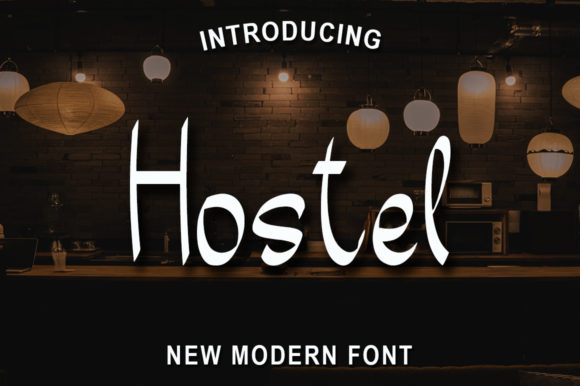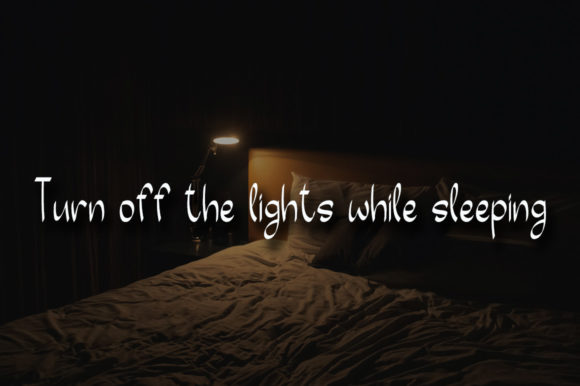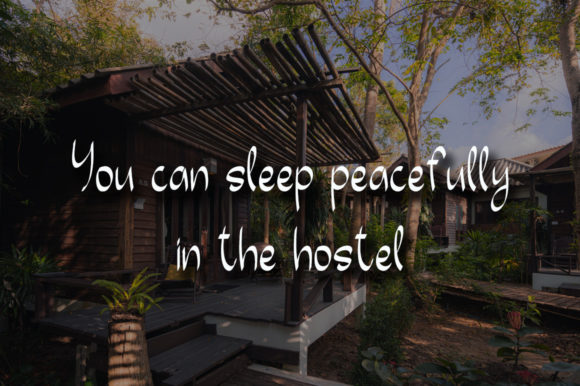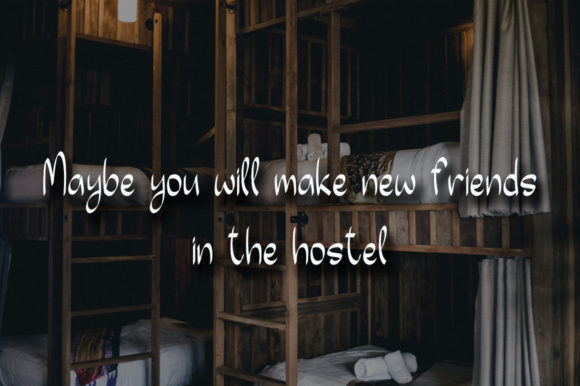
Hostel Font
About Hostel Font
Hostel is a sweet and friendly handwritten font. Its natural and unique style makes it incredibly fitting to a large pool of designs. The only limit is your imagination!